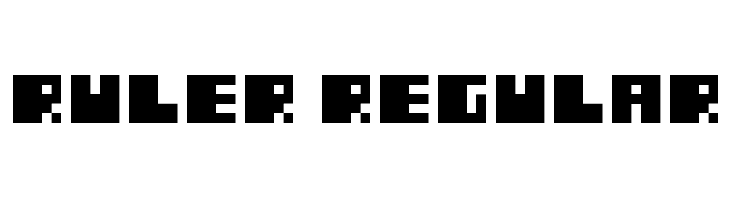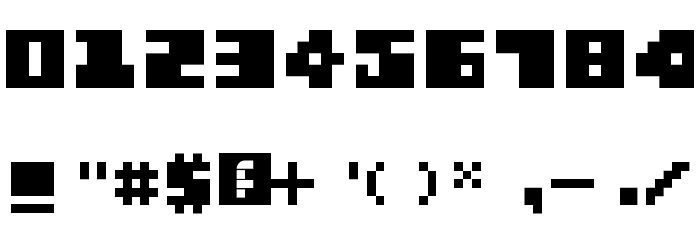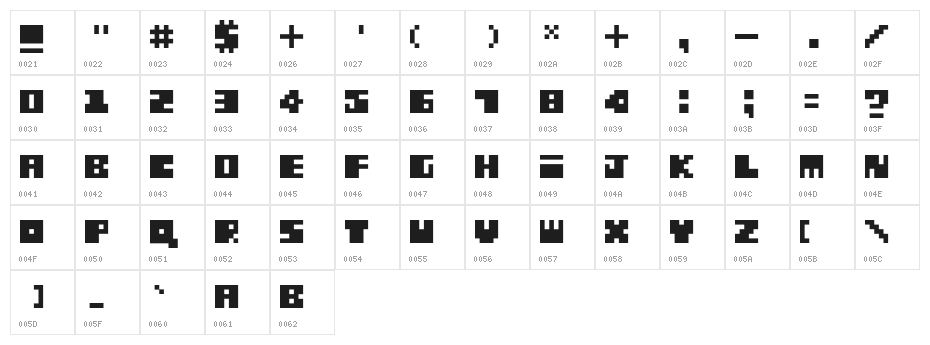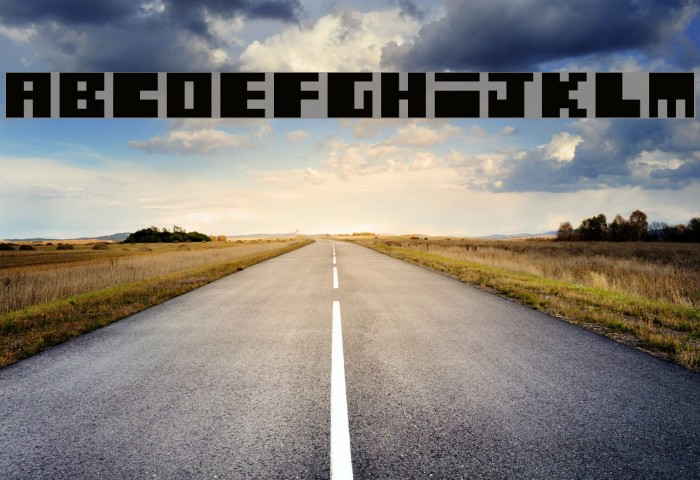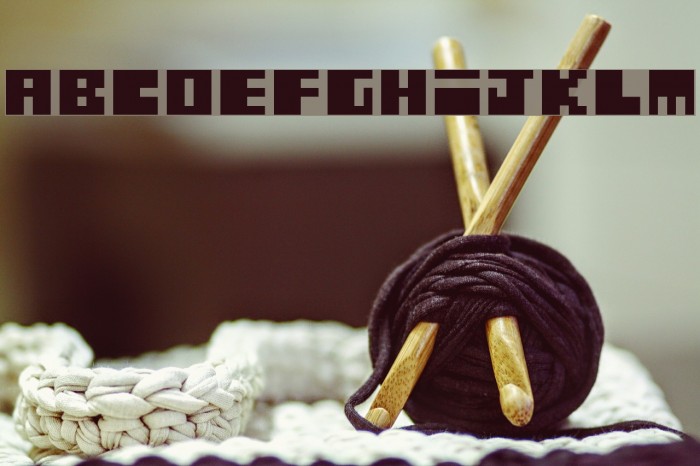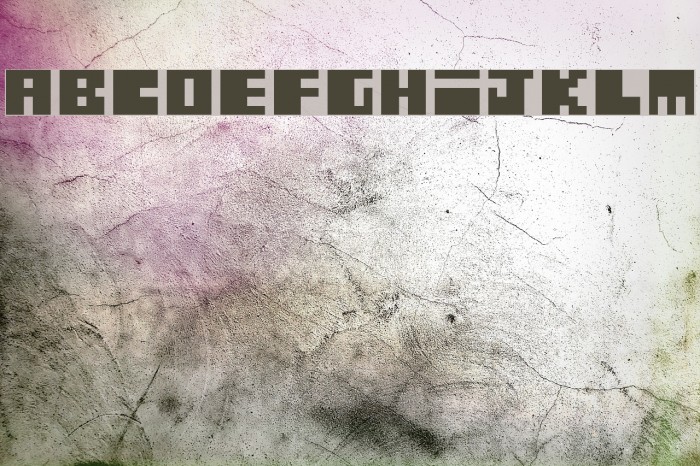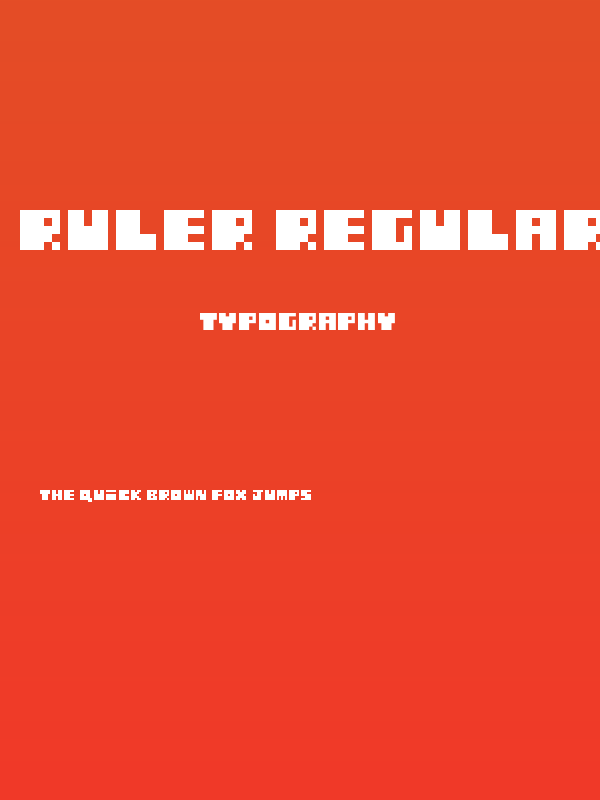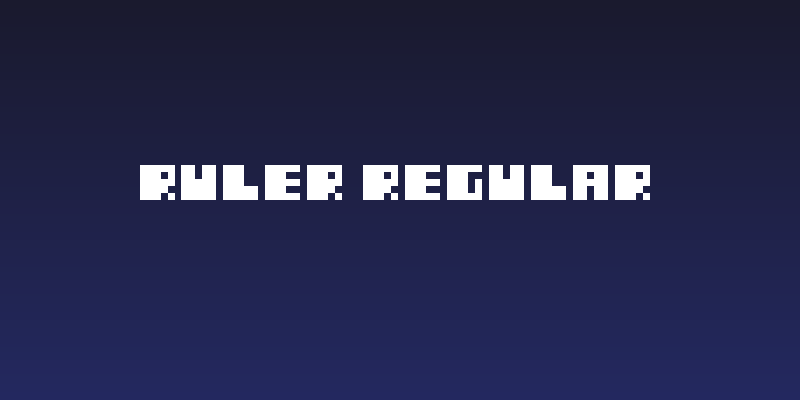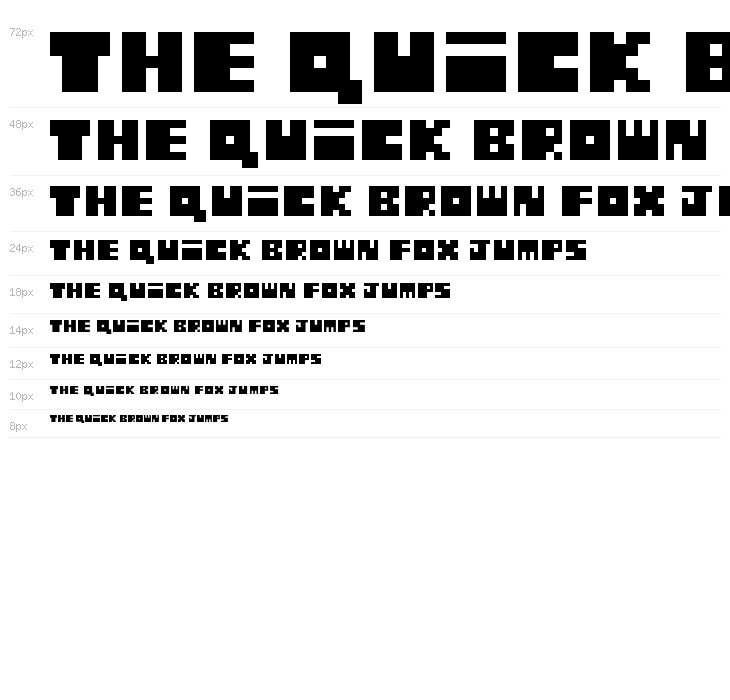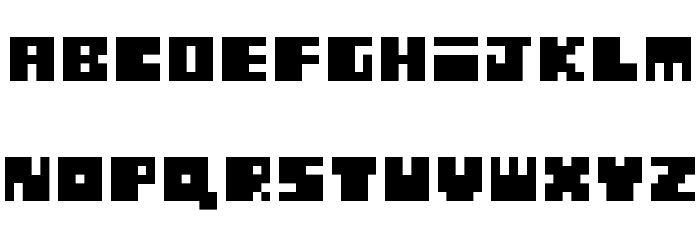
ruler Regular Font
ruler Regular Description
This font features a bold, geometric design with a pixelated aesthetic, reminiscent of early digital displays or retro video games. Each character is constructed with sharp, angular lines and uniform block shapes, creating a cohesive and striking visual impact. The uppercase and lowercase letters maintain a consistent height, contributing to a monospaced appearance. The numerals and special characters follow the same design principles, ensuring uniformity across all glyphs. This font's distinct style makes it ideal for projects that require a strong, digital, or retro feel.
| Use Case | Headlines, Logos, Digital Art |
| Proposed Projects | Ideal for video game design, digital art projects, retro-themed branding, and tech-related presentations. |